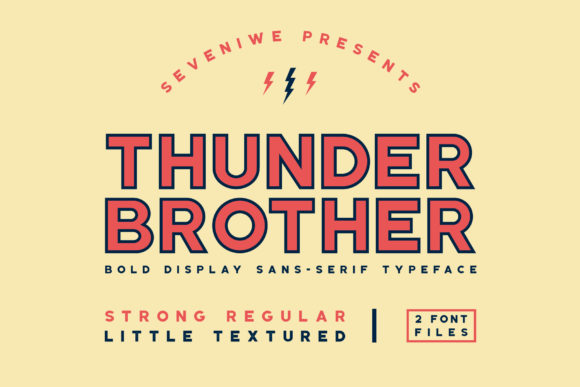
In the realm of digital artistry, where creativity dances with technology, allow us to introduce you to the Thunderbrother Font, a display font family poised to ignite your designs with boldness and confidence. This font, carefully crafted by the talented Roman Paslavskiy, is not just a collection of letters; it's an expression of power, a testament to your unwavering spirit.
With its Regular and Textured variations, the Thunderbrother Font stands ready to cater to your every creative whim. Whether you seek a clean, modern aesthetic or a vintage, textured charm, this font family has you covered. Its versatility knows no bounds, making it the perfect choice for logos, branding, posters, social media graphics, and web design.
Imagine your words taking on a life of their own, commanding attention with every stroke. The Thunderbrother Font exudes strength and determination, effortlessly delivering your message with style and impact. It's the perfect font for businesses looking to make a statement, for artists seeking to unleash their inner fire, and for anyone who wants to add a touch of thunder to their creative endeavors.
But what truly sets the Thunderbrother Font apart is its emotional resonance. It speaks to the depths of your soul, stirring emotions that words alone cannot capture. Its bold strokes and confident curves create a visual symphony that captivates the eye and ignites the imagination.
So, why settle for ordinary fonts when you can harness the power of Thunderbrother? Unleash your creativity, embrace your boldness, and watch as your designs take on a life of their own. Let the Thunderbrother Font be your weapon of choice, your ally in the pursuit of visual excellence.